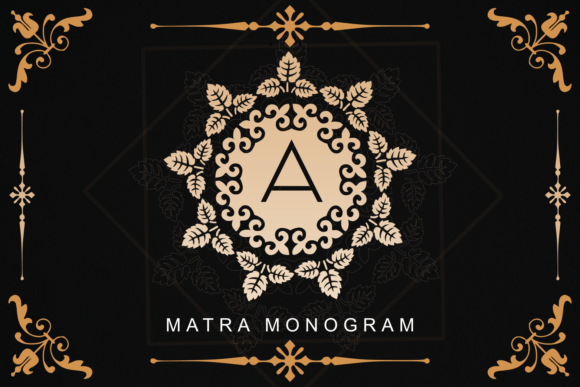
Prepare to be captivated by Matra Monogram, the decorative font that will ignite your creativity! This enchanting font exudes authenticity, ready to elevate your designs like never before. Picture invitations adorned with its graceful strokes, stationery art that tells a thousand stories, social media posts that demand attention, and greeting cards that warm hearts. Matra Monogram is your key to unlocking a world of endless possibilities, transforming your artistic visions into tangible masterpieces. Indulge in the beauty of its intricate characters and let your imagination soar!